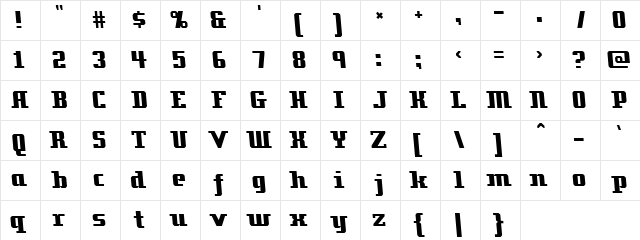
Zenith 2000 Regular Font Preview
Zenith 2000 Regular
Zenith 2000 Regular Font Details
Design Context for Zenith 2000 Typeface
Zenith 2000 is a composed and adaptable typeface that performs quietly and consistently across a wide range of design contexts.
Pro Tip: Use Zenith 2000 in both headline and body roles to test its range before committing to a single application.